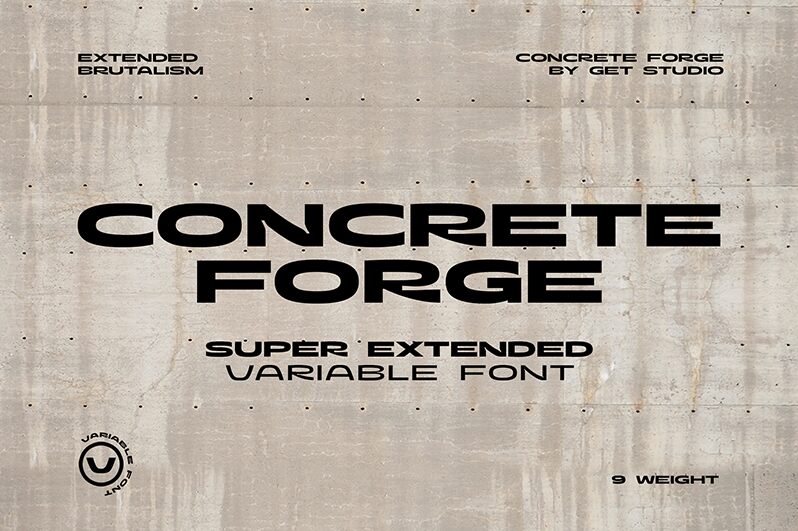
Concrete Forge font by Get Studio offers a condensed modern geometric style with structured characters. Each precisely crafted component combined forms this unified, disciplined piece typical for all sections of the available font weights. The free industrial display font uses both wide lines and pressed arches to create its signature edgy look.
Utilize Concrete Forge as a headline font in flyers, posters, magazines, brochures, and newspapers. Enlarge its weight to hone it for book titles and website headings while keeping it small for smaller paragraph texts in magazines or digital platforms.